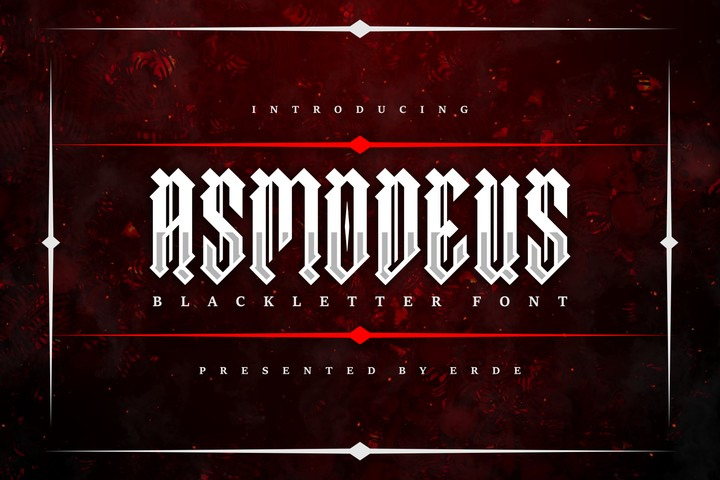
Asmodeus Blackletter Font
This dramatic typeface is perfect for gothic fashion branding, metal band logos, dark fantasy book covers, occult-themed publications, medieval restaurant signage, horror movie titles, alternative lifestyle marketing, and mystical entertainment venues. Asmodeus Blackletter Font delivers commanding darkness in applications where gothic authenticity and medieval mystique are essential for creating memorable brand experiences that captivate audiences drawn to alternative culture and dark aesthetic themes.
What makes Asmodeus Blackletter Font so exciting is its masterful embodiment of medieval darkness and gothic grandeur through traditional blackletter typography. The font features dramatically styled letterforms with sharp angles and ornate flourishes that capture the essence of ancient manuscripts and gothic architecture. Each character has been carefully crafted to convey mysterious authority while maintaining excellent readability across various dark-themed applications. The typeface's commanding personality creates immediate associations with medieval power and gothic sophistication, making it perfect for brands seeking to communicate dark elegance and alternative authenticity through their visual identity.
The Asmodeus Blackletter Font includes powerful style variations: Regular, Bold, Ornamental, and Shadow versions. This gothic collection allows designers to create dramatic layouts and establish commanding typographic treatments that capture the essence of medieval darkness and gothic culture. Each style maintains the font's inherent mystique while providing different levels of dramatic emphasis for various alternative applications and dark design themes.
Whether you're developing alternative lifestyle brand identities, creating gothic entertainment materials, or designing dark fantasy marketing campaigns, Asmodeus Blackletter Font Free Download provides the dramatic character that resonates with gothic culture enthusiasts and alternative audiences. Its powerful appeal makes it particularly suitable for metal bands, gothic fashion brands, occult publishers, and alternative entertainment venues. The font's commanding presence ensures maximum impact in both performance graphics and dark lifestyle marketing materials, while its versatile design adapts beautifully to gothic, medieval, and alternative aesthetic approaches.
This commanding gothic typeface represents the perfect choice for designers who understand the power of dark authenticity in creating meaningful connections with alternative culture communities and gothic lifestyle enthusiasts.